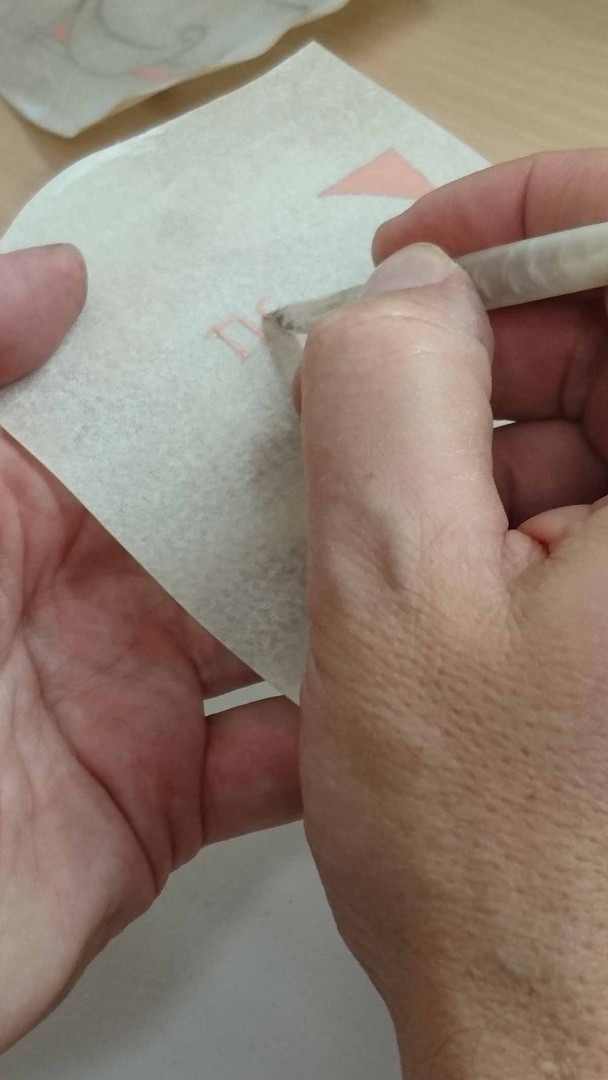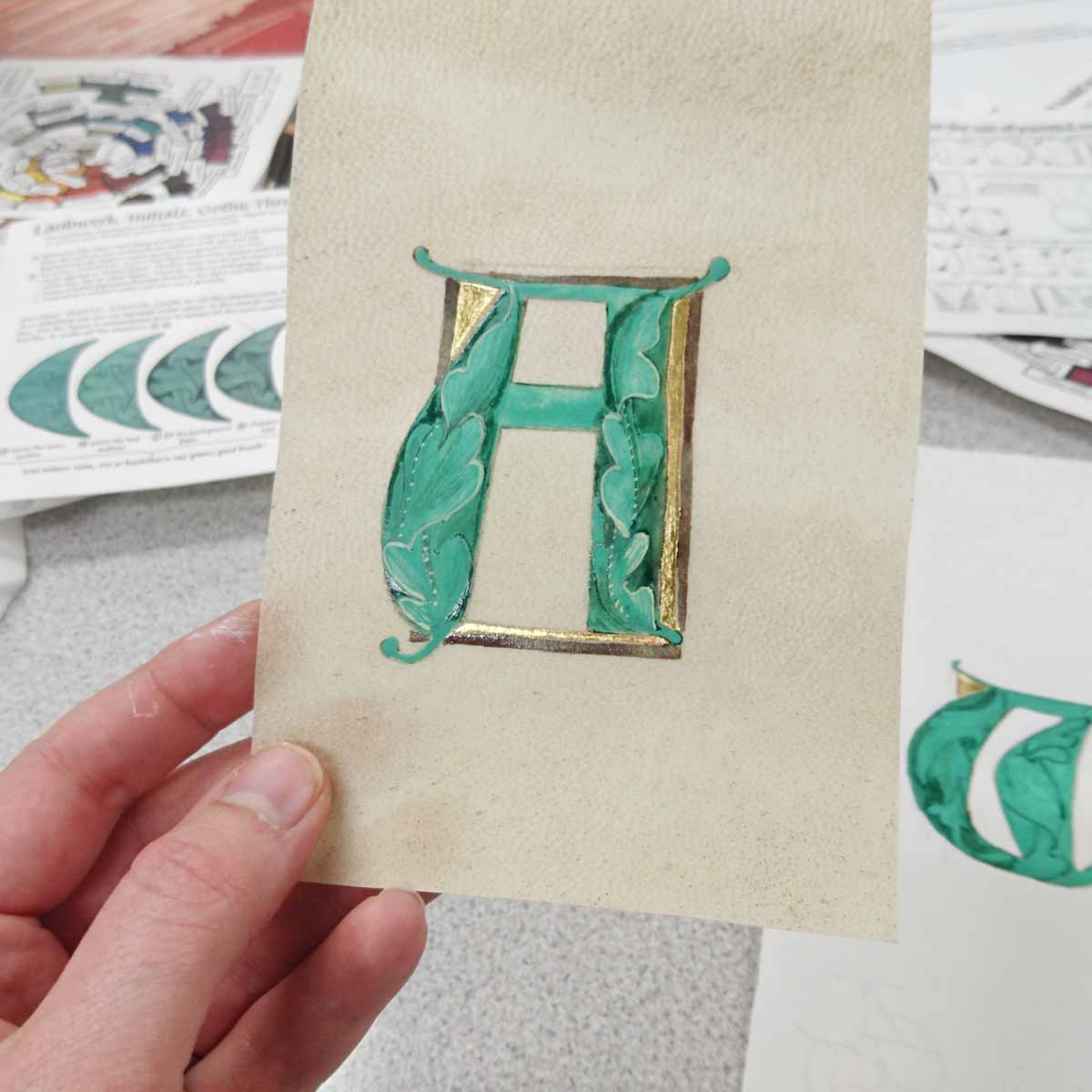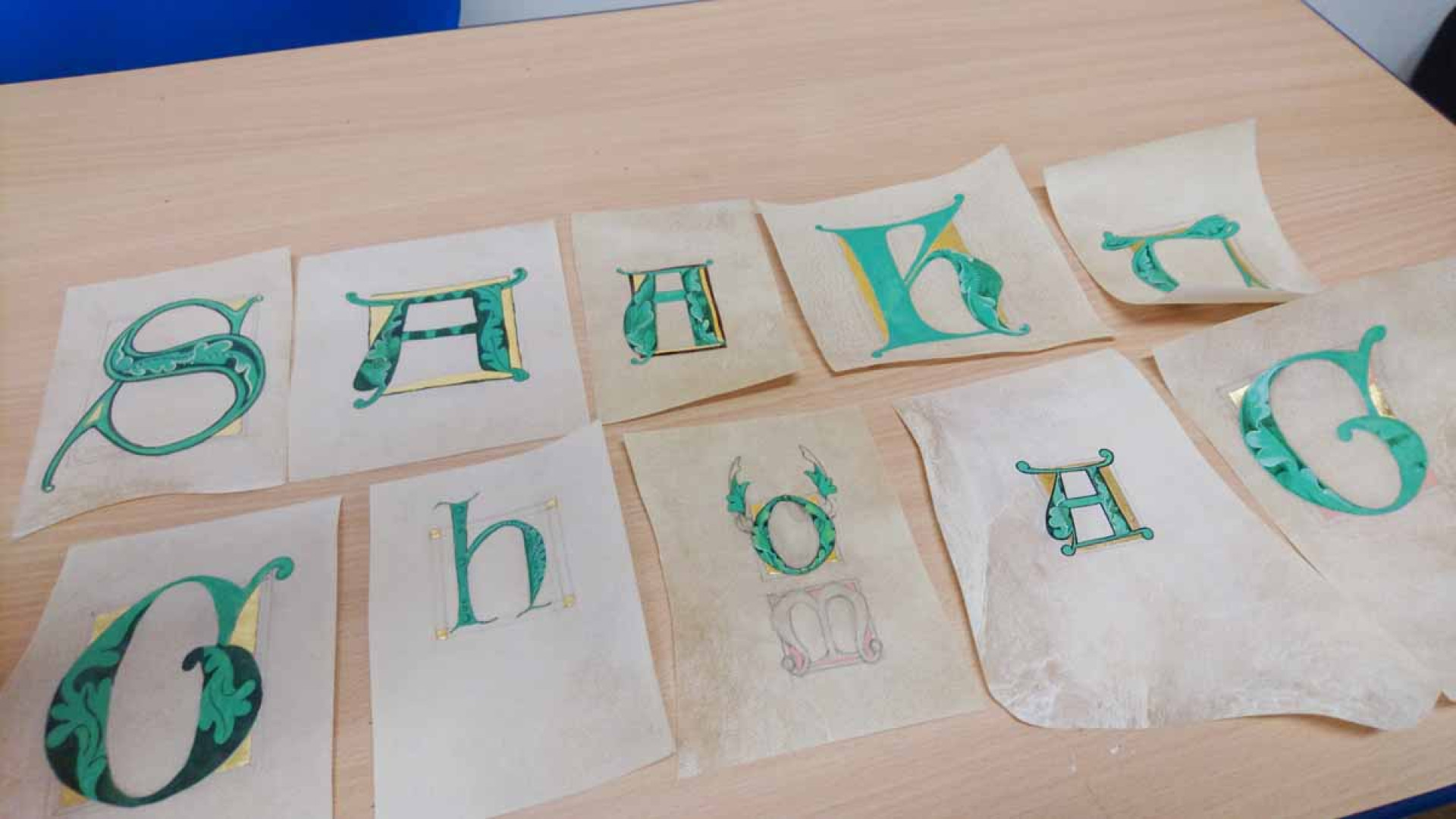
Pigment mixing workshop with Klaus-Peter Schäffel
I don’t think many of us knew what to expect when we signed up for a workshop with Klaus-Peter Schäffel on Sunday 13th November 2016. The workshop was an addition to our usual workshop programme and sounded intriguing — something about making paints from natural products and using gesso and gold. I, like 13 other inquisitive members, decided to go along.
We were in for a day of absolute delight! It was magic and alchemy and I don’t think anyone in the room expected to produce as much work as they did that day. I can’t begin to cover even a fraction of all the things we learned and heard and saw that day. What really stood out for me was the quality of the detailed, scientific explanations that Klaus-Peter gave us on the structure of gesso and paints, using minerals and rocks and plants, and how these all interacted with the vellum (and ponce and sandarac) to produce the beautiful effects we desire.
We started off by considering light and shadow by sketching some simple pieces. We rapidly moved onto preparing a piece of vellum using ‘wet and dry’ sand paper and talking about the uses of ponce and sandarac on vellum and paper. We were given wonderful handouts to help us prepare an outline for an illuminated letter to draw onto the vellum. During the course of the day we made our own gesso, applied it to the vellum and gilded the gesso. We then made our own azurite and malachite colours from natural minerals, applied these to the vellum letter we made earlier and then made sap green from buckthorn berries and carried on painting our illuminated letter.
The only disappointing thing about the day was that we could not carry on tomorrow!!! Klaus-Peter brought a lot of his own products for us to play and experiment with. His gentle, funny and encouraging method of teaching gave everyone confidence to progress with the making of their own illuminated letter using completely natural products just like they did hundreds of years ago. I had been to see the excellent ‘Colour – The Art and Science of Illuminated Manuscripts’ exhibition at the Fitzwilliam Museum in Cambridge only a few days earlier (its on until the end of the year and a must see!!) and this wonderful workshop bought the whole fabulous experience to life for me. Just brilliant!